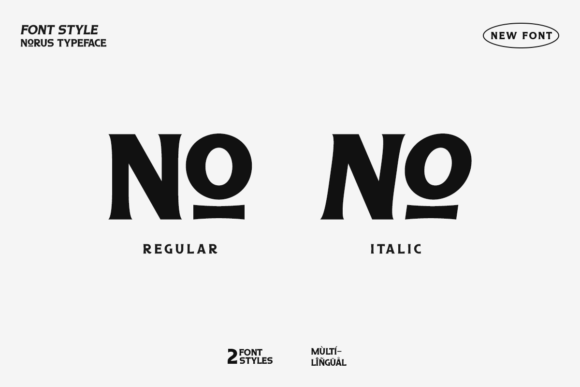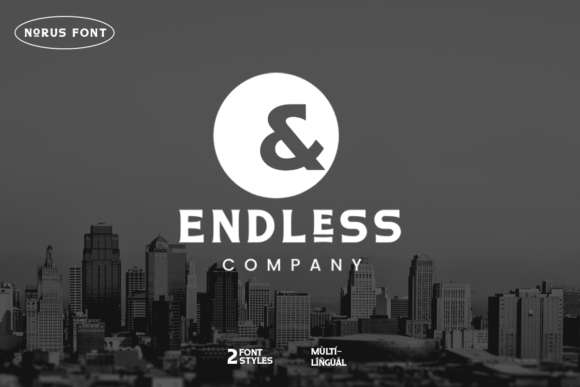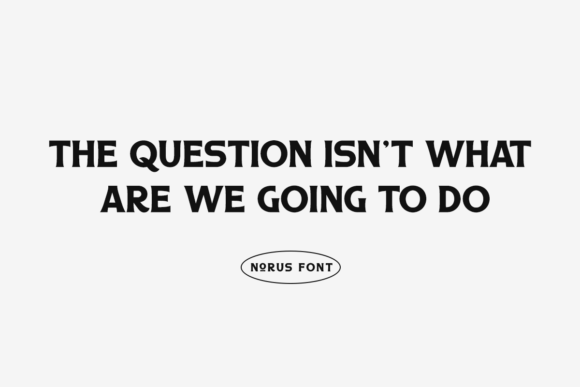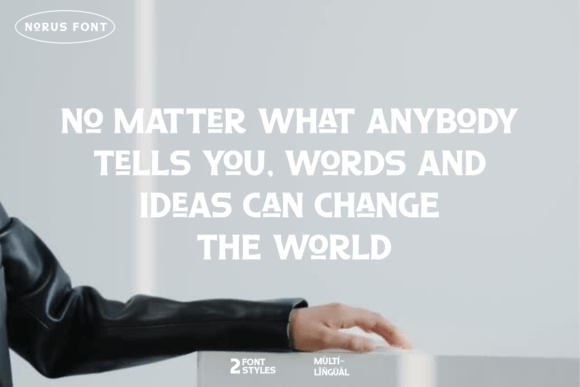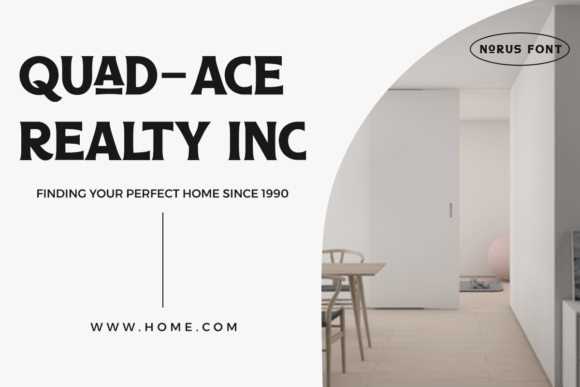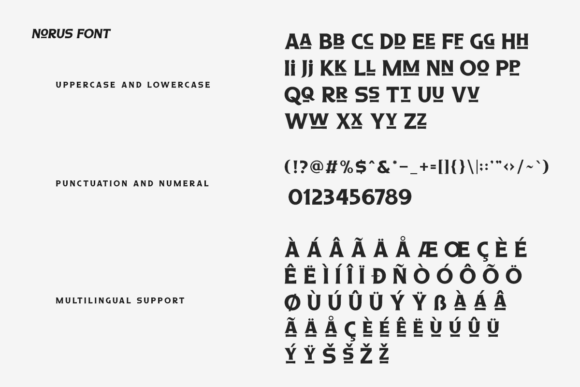
Introduction to Norus Font
Have you ever stared at a blank canvas, trying to find the perfect font to bring your creative vision to life? The struggle is real, especially when you’re working on a high-stakes project like a movie title or a poster for your favorite band. But what if I told you that there’s a font that could elevate your design and make it truly unforgettable?
Enter the Norus Font, a sleek and modern all-caps serif font that’s perfect for making a statement. With its bold lines and high-quality design, this font is a game-changer for designers looking to add some edge to their creative project. Whether you’re working on a commercial, a t-shirt design, or a logo, the Norus Font is a valuable resource that’s sure to impress.
Key Features of Norus Font
- High-quality design resource suitable for various creative projects
- Includes a range of font styles and sizes to cater to diverse design needs
- Unique, modern design that stands out in a variety of creative projects
- Perfect for use in logos, branding, and other design elements requiring a clean and sophisticated look
Honest Review: Norus Font
One of the things that works well about the Norus Font is its high quality and versatility. It’s perfect for a creative project that requires a unique and stylish touch. The font is available in various weights, making it easy to find the perfect fit for your design.
- ✨ Customizable: The Norus Font offers a range of styles and weights, allowing for endless possibilities in your design.
- ✨ High-quality glyphs: The font’s glyphs are crisp and clear, making it perfect for print or digital use.
Overall, I’m impressed with the Norus Font’s quality and versatility. While it may not be perfect for every project, it’s definitely worth considering for your next creative endeavor.
Norus Font
Norus Font is a high-quality design resource ideal for creative projects. This versatile font offers a transparent background, making it perfect for various applications.
Tips for Getting the Most Out of Norus Font
To get the most out of Norus Font, use it in combination with other design resources, such as images and shapes. Experiment with different font sizes and colors to create visually appealing designs.
Norus Font is perfect for various creative projects, including:
Alternatives to Norus Font
Open Sans is a high-quality, free download font suitable for a variety of creative projects, including logos, websites, and marketing materials. It features a clean and modern design, making it ideal for use in a variety of contexts.
When to use: Open Sans is suitable for use in both digital and print projects, particularly those that require a clean and modern aesthetic.
How it compares to Norus Font: While both fonts are modern and clean, Open Sans is more versatile and widely used, making it a great alternative for designers looking for a high-quality font.
Montserrat is a high-quality, free download font designed specifically for use in digital products. It features a clean and modern design, making it ideal for use in creative projects that require a strong typographic presence.
When to use: Montserrat is suitable for use in digital products, including websites, mobile apps, and video games.
How it compares to Norus Font: While both fonts are modern and clean, Montserrat is more condensed and suitable for use in digital products, making it a great alternative for designers looking for a high-quality font.